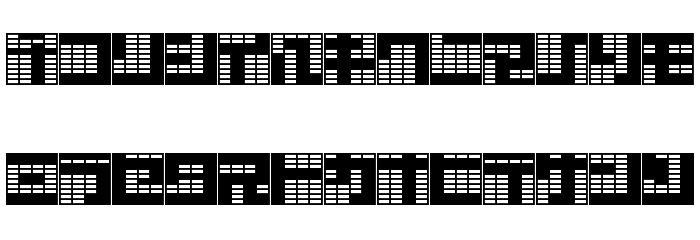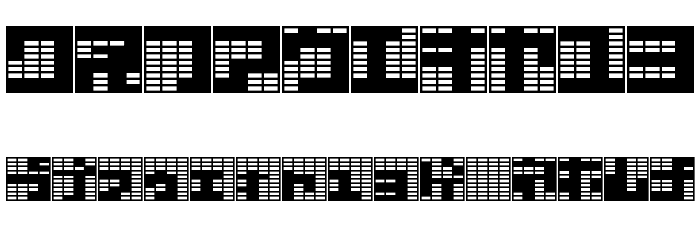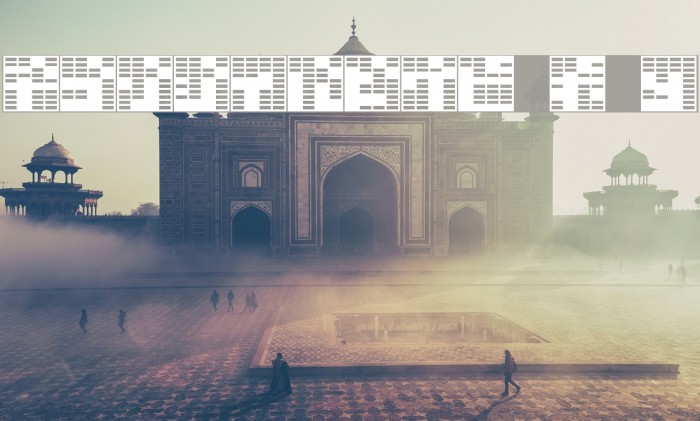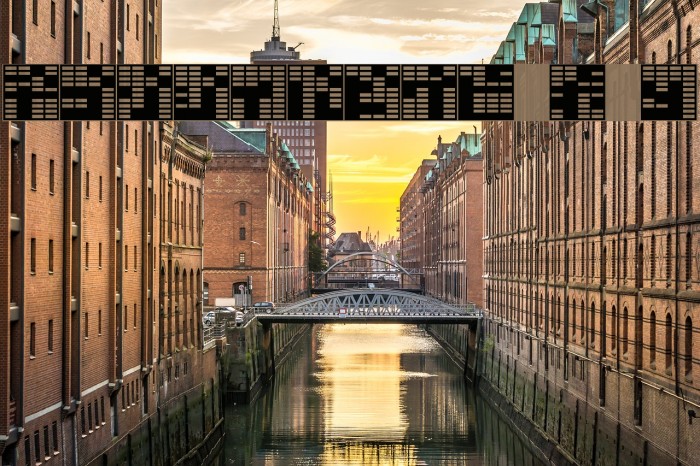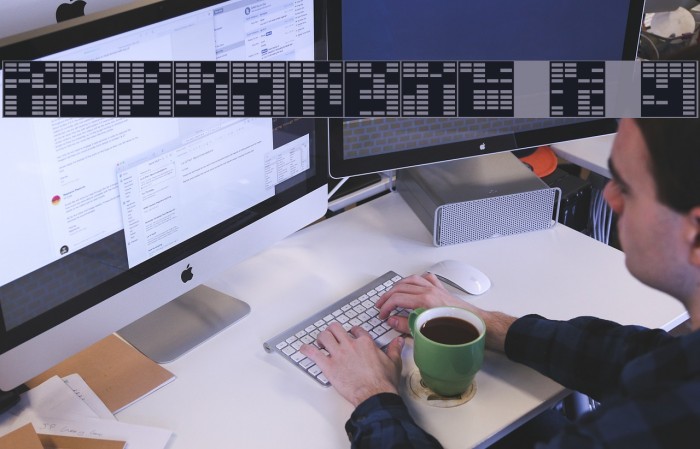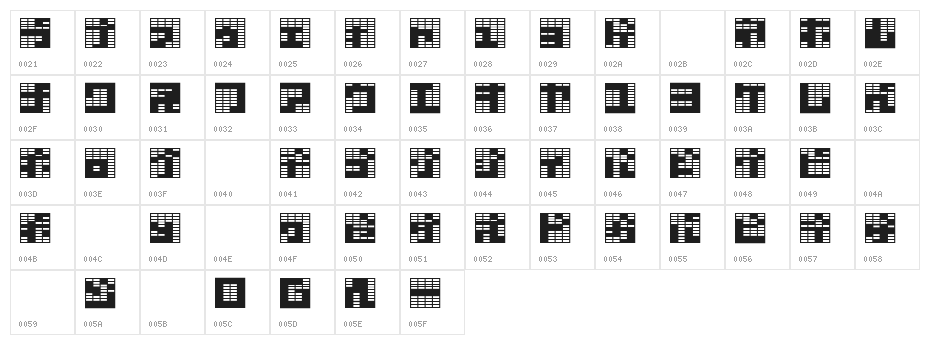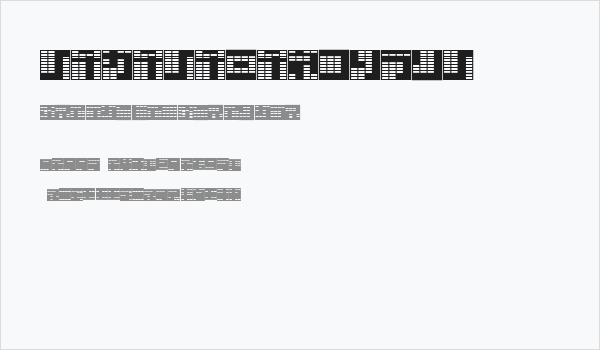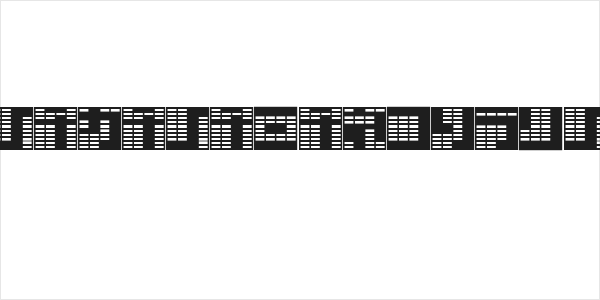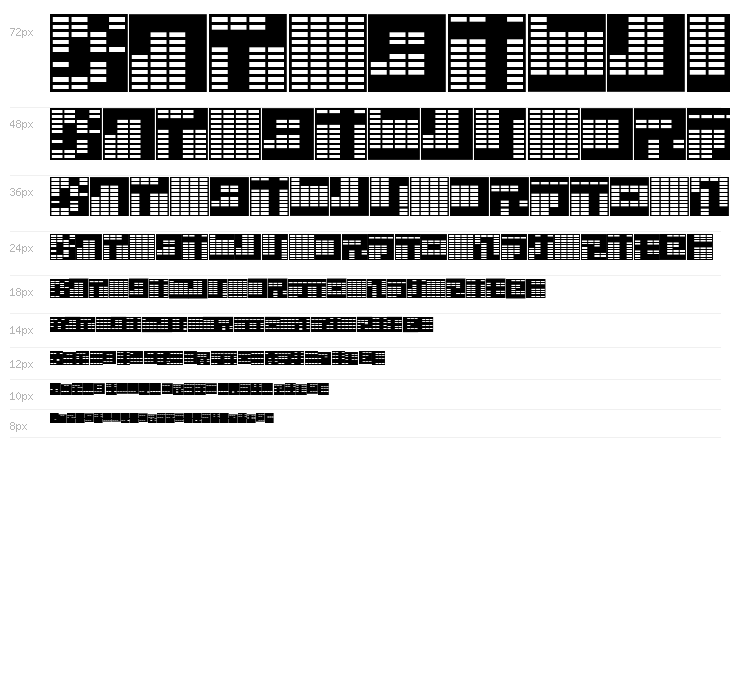
katakana,block Font
This font features a unique blocky design that mimics the appearance of digital displays or pixelated graphics. Each character is constructed using a grid-like pattern, giving it a distinctly modern and technological feel. The letters and numbers are bold and highly stylized, making them stand out with a strong visual impact. The font's geometric structure is consistent across all characters, providing a cohesive and uniform look. This style is reminiscent of retro digital screens, making it ideal for projects that require a futuristic or tech-inspired aesthetic.
A bold, blocky font with a digital, pixelated design.
- Proposed Projects: Ideal for tech-themed designs, video game graphics, digital art, and futuristic branding.